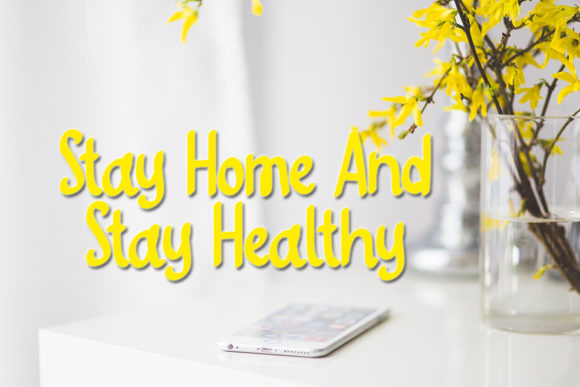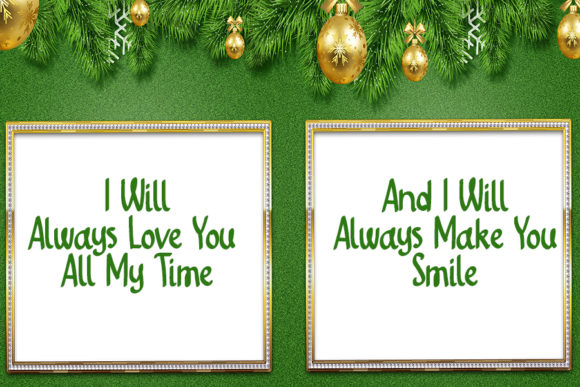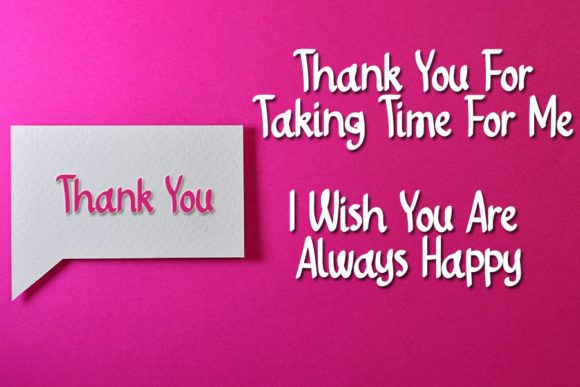
Introduction to Make Me Happy Font
Remember that moment when you stumbled upon the perfect design element that brought your entire creative project together? For many of us, it’s that ‘aha’ moment that makes all the hard work worth it. For me, it’s often about finding the right font to set the tone for my project. Recently, I discovered the Make Me Happy Font, a classic handwritten font that adds a touch of warmth and personality to any design.
As a designer, I know how valuable it is to have access to high-quality design resources like the Make Me Happy Font. With its free download and transparent background, it’s the perfect addition to any creative project. Whether you’re working on a blog post, social media graphic, or crafting a unique card, this font is sure to bring a smile to your face.
Key Features of Make Me Happy Font
- Unique characteristics include a playful, handwritten style with varying line widths and subtle texture.
- Perfect for use in graphic design, digital art, and other creative projects where a touch of personality is desired.
Honest Review: Make Me Happy Font
I recently stumbled upon the Make Me Happy Font, and I must say it’s been a game-changer for my creative projects. This free download has been a fantastic addition to my design resource library.
Here’s what works well:
- ✨ The high quality of the font is impressive, with crisp and clear lines that make it perfect for digital use.
- ✨ The font is incredibly versatile and can be used for a wide range of creative projects, from branding to editorial design.
- ✨ The transparent background feature is a great touch, allowing for seamless integration with any design element.
- ⚠️ The font library is relatively small, so you may find that you need to supplement with other fonts to achieve the desired look.
Overall, I’m really impressed with the Make Me Happy Font, and I think it’s a great addition to any designer’s toolkit. With its high quality and versatility, it’s definitely worth checking out for your next creative project.
Introduction to Make Me Happy Font
The Make Me Happy Font is a high-quality design resource that can add a touch of creativity to your projects. With a transparent background, this font is perfect for adding a pop of color and personality to your designs.
Getting the Most Out of Make Me Happy Font
To get the most out of the Make Me Happy Font, be sure to experiment with different colors and combinations to find the perfect look for your project.
Common Use Cases for Make Me Happy Font
The Make Me Happy Font is perfect for a variety of creative projects, including:
Social media graphics and posts.
Presentations and slides.
Blog posts and articles.